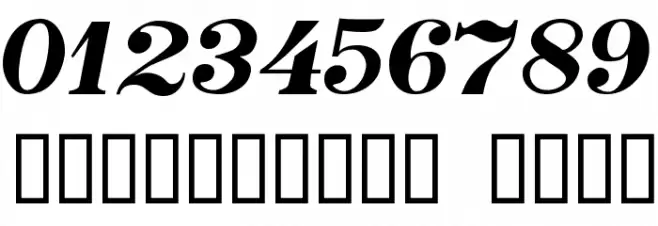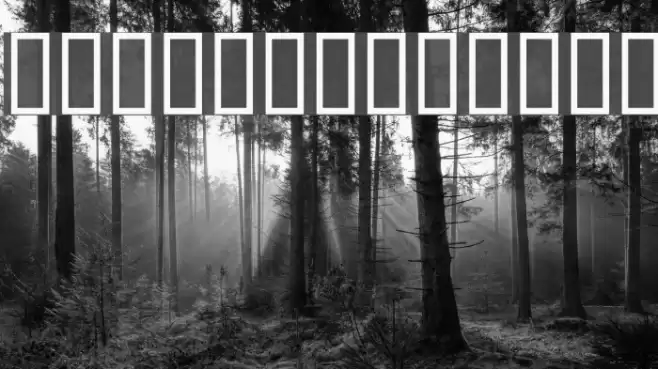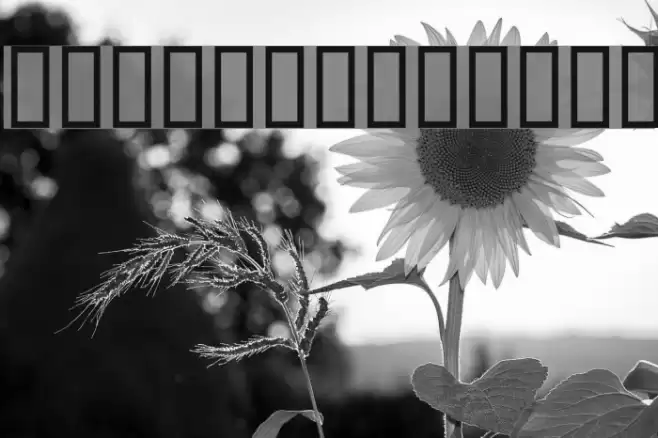
Tuplet Numbers [Petrucci] Font
Tuplet Numbers [Petrucci] Description
This font features a bold and elegant style, characterized by its high contrast between thick and thin strokes. The numbers are designed with a classic serif influence, giving them a sophisticated and timeless appearance. Each numeral is crafted with precision, showcasing a balance between traditional and modern elements. The curves are smooth and refined, adding a touch of elegance to the overall design. This font is ideal for projects that require a touch of class and readability, making it suitable for both digital and print media.
A bold, high-contrast serif font with elegant, classic numerals from Uncategorized fonts.
- Proposed Projects: Ideal for use in formal invitations, luxury branding, editorial design, and high-end product packaging.
- Overall Style: Classic